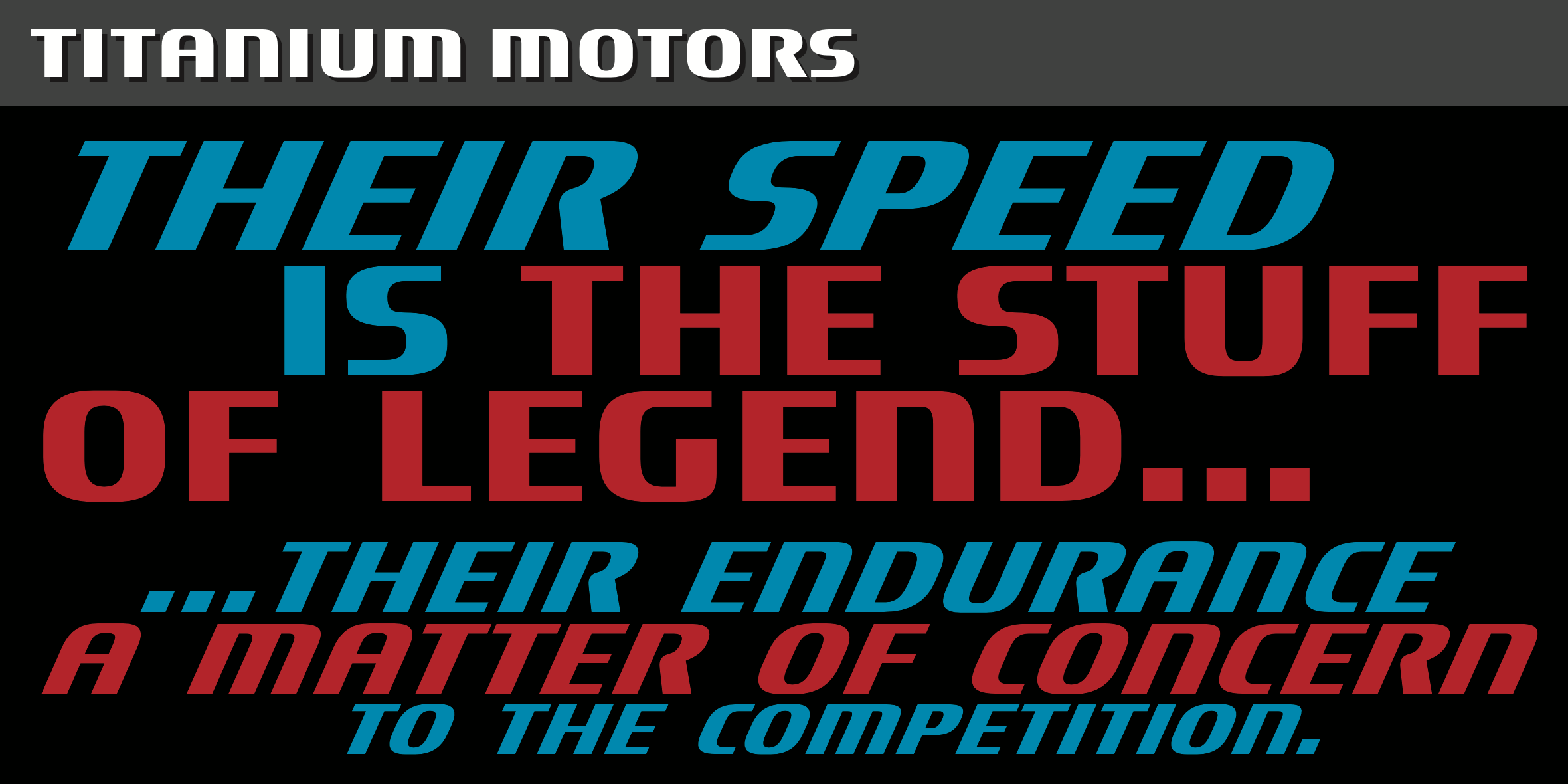
Titanium Motors Font is perfect for automotive industry branding, car dealership logos, motorcycle graphics, racing team signage, auto parts packaging, garage workshop designs, speedway event posters, and high-performance vehicle designs that require industrial strength and automotive authenticity.
This font is exciting because it embodies the power and precision of premium automotive engineering through its robust letterforms that convey strength, speed, and mechanical excellence. The industrial character design captures the essence of high-performance machinery and racing culture, making it ideal for brands operating in the automotive and motorsports industries.
Titanium Motors Font belongs to the industrial display font family, featuring automotive styling and mechanical elements that enhance its credibility for vehicle industry and racing-focused design applications.
Whether you're creating automotive brand identities or motorsports promotional graphics, Titanium Motors Font Free Download delivers maximum horsepower and industrial impact. This typeface perfectly balances mechanical precision with visual strength, making it essential for designers working on automotive projects that demand performance credibility and racing heritage. The font's powerful presence works exceptionally well in logos, vehicle graphics, and promotional materials, providing optimal readability while maintaining its high-octane character that accelerates any design with automotive authority across all media platforms and racing communications.